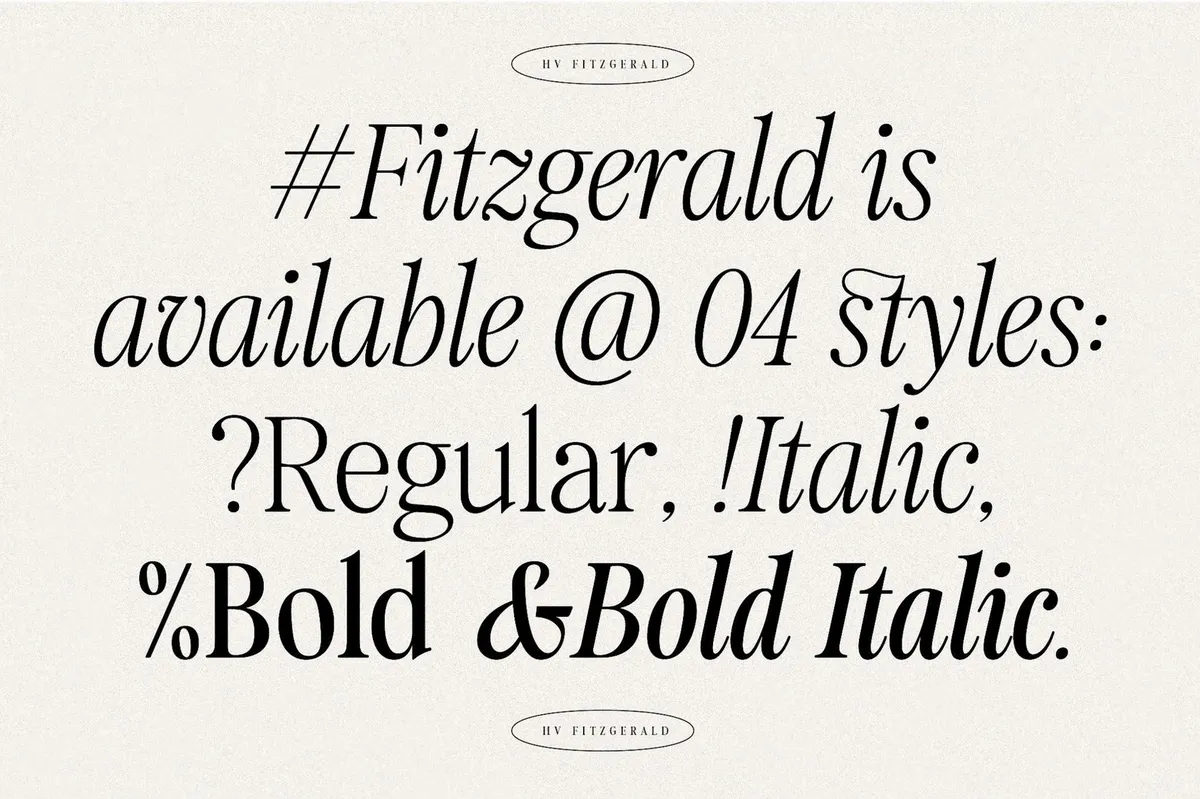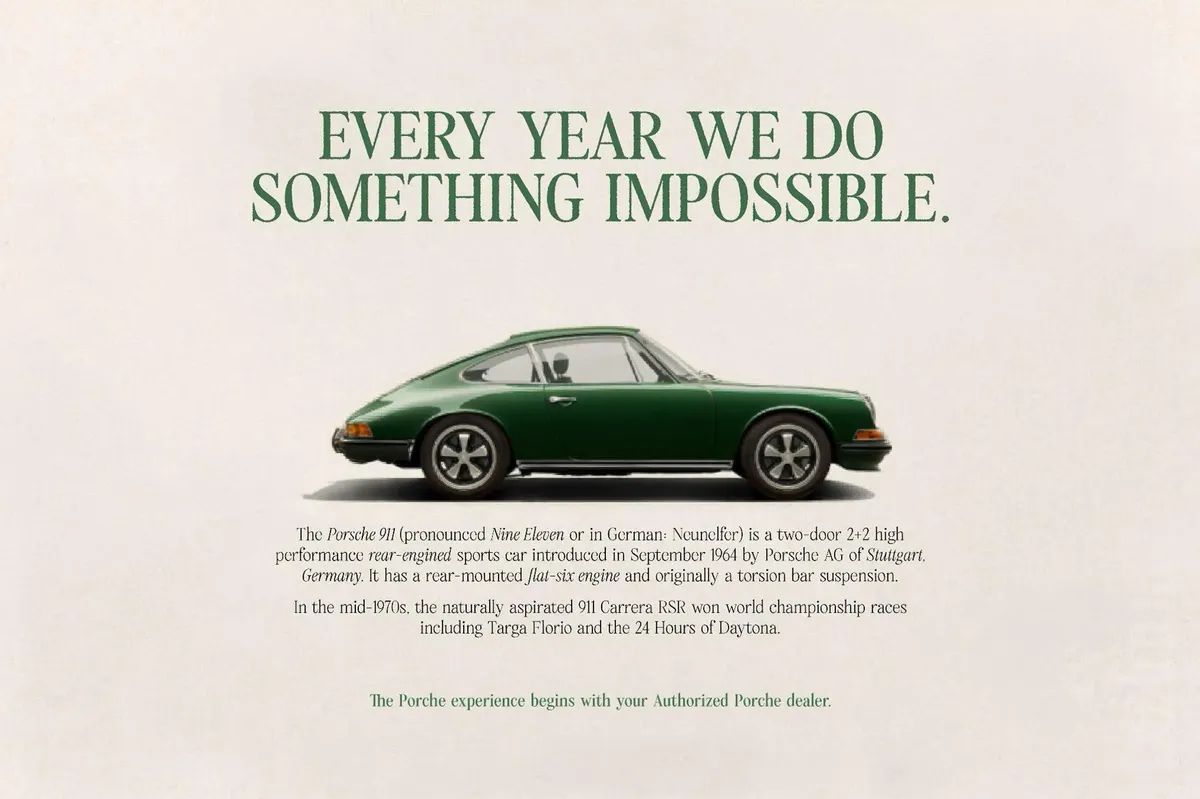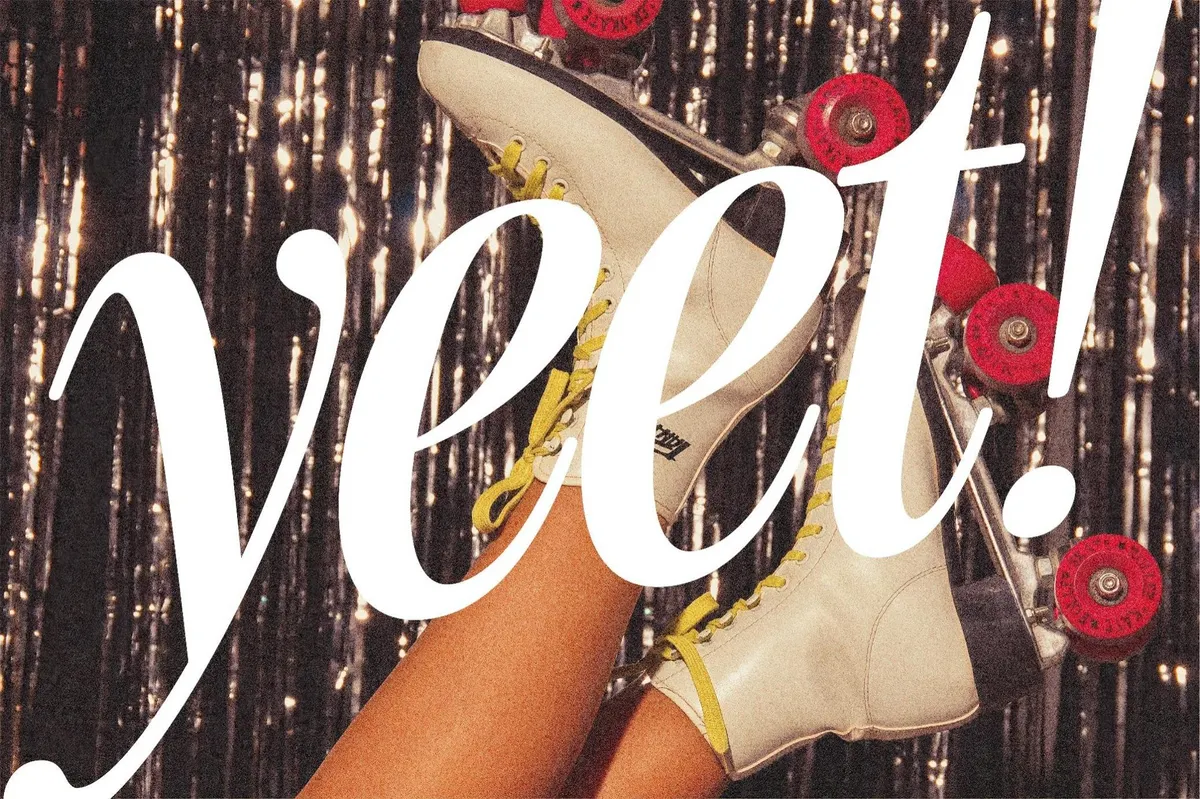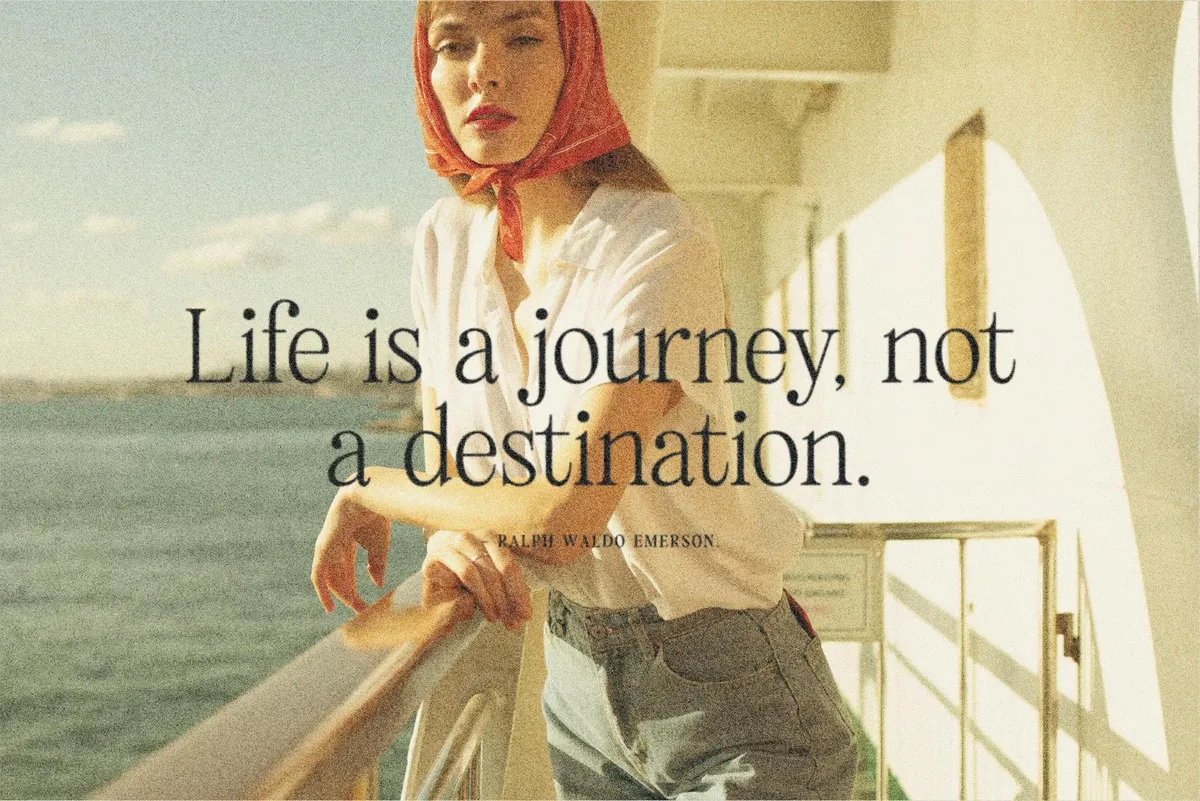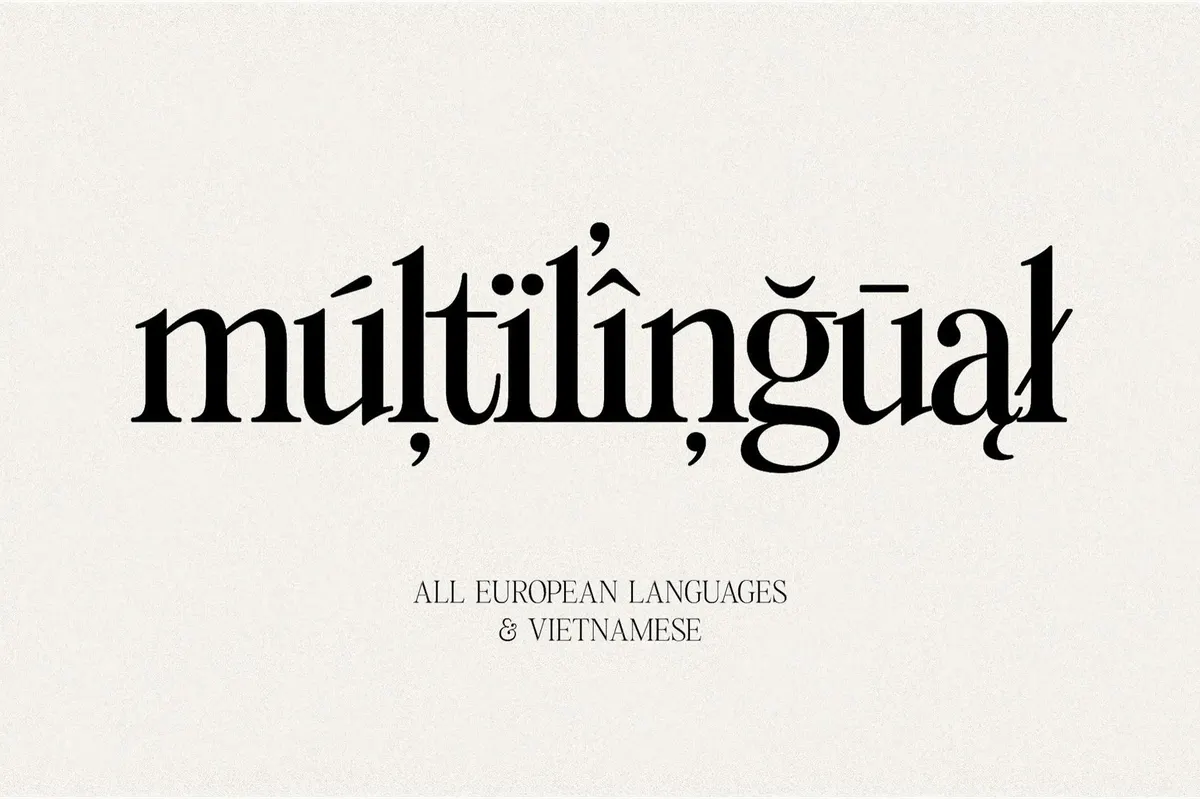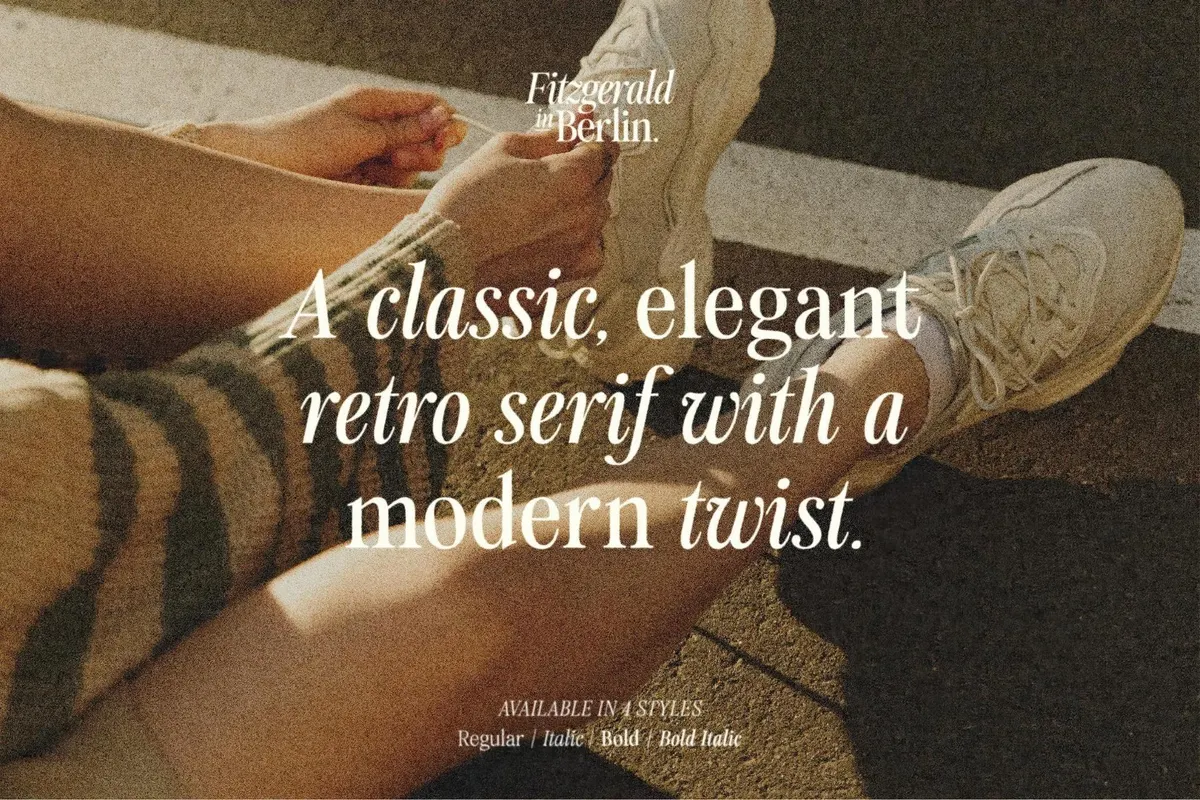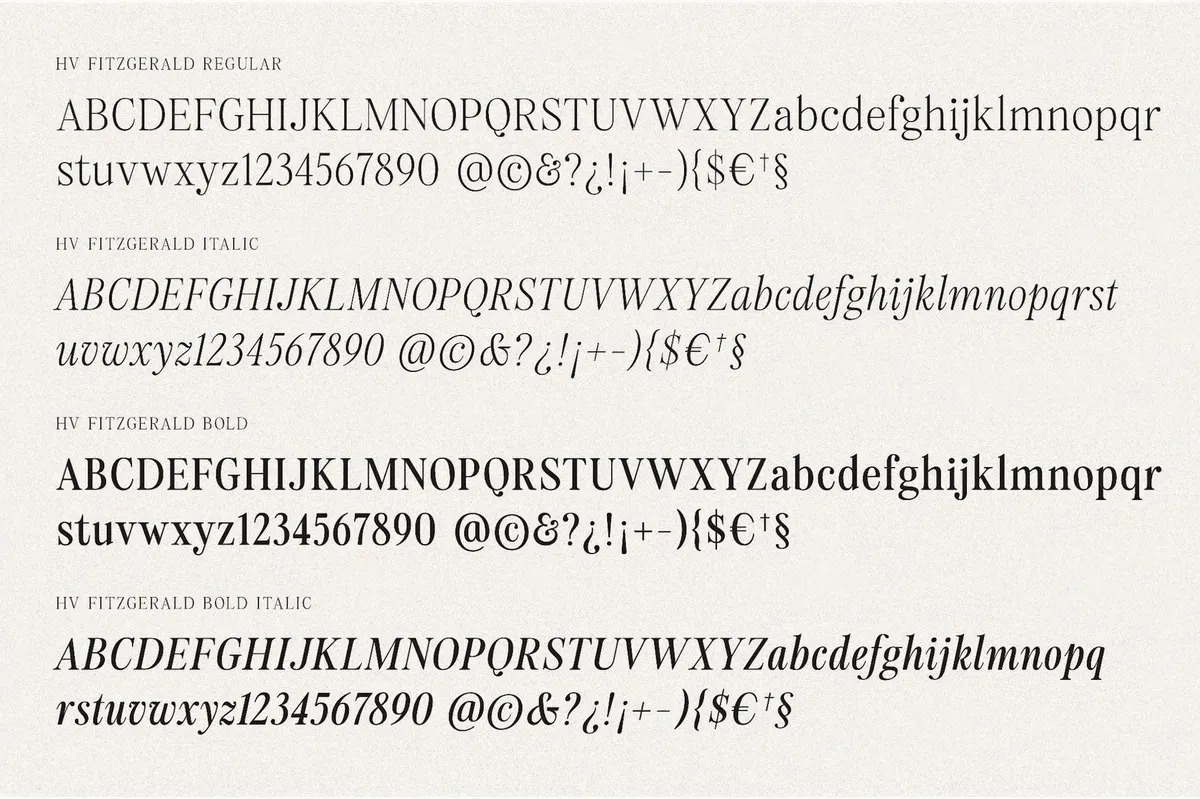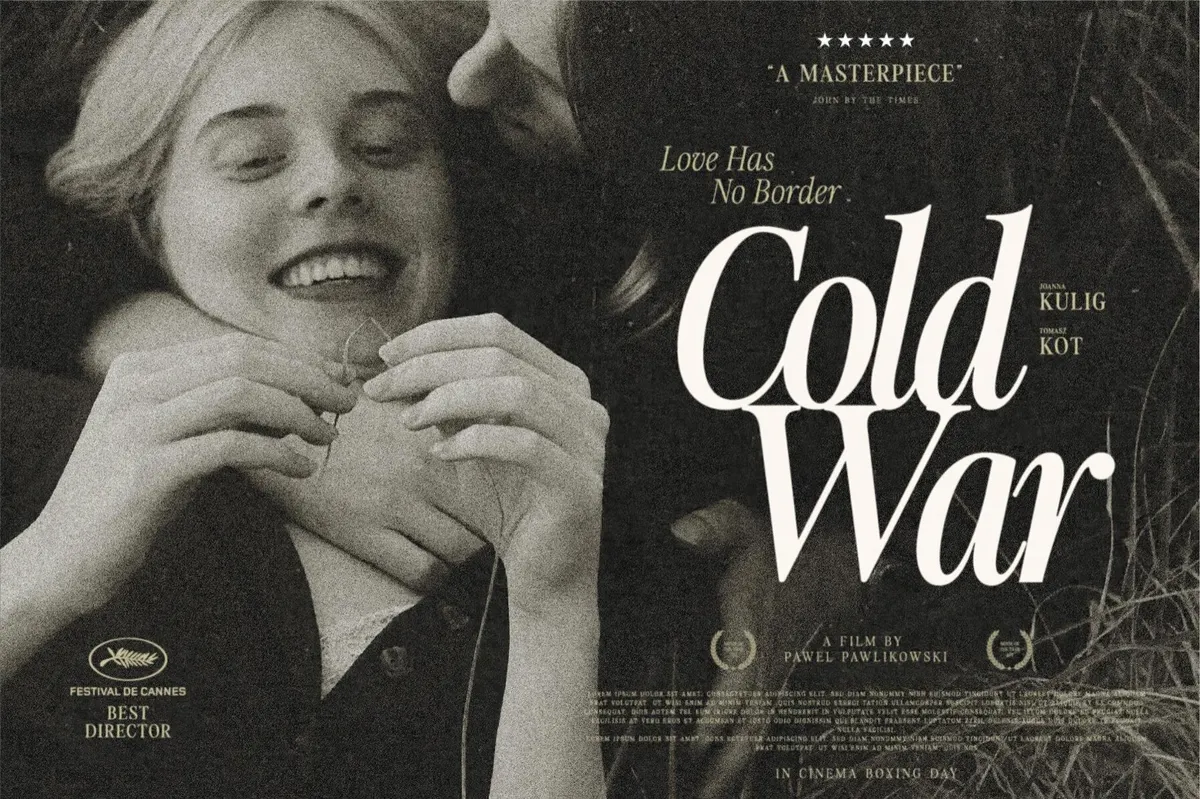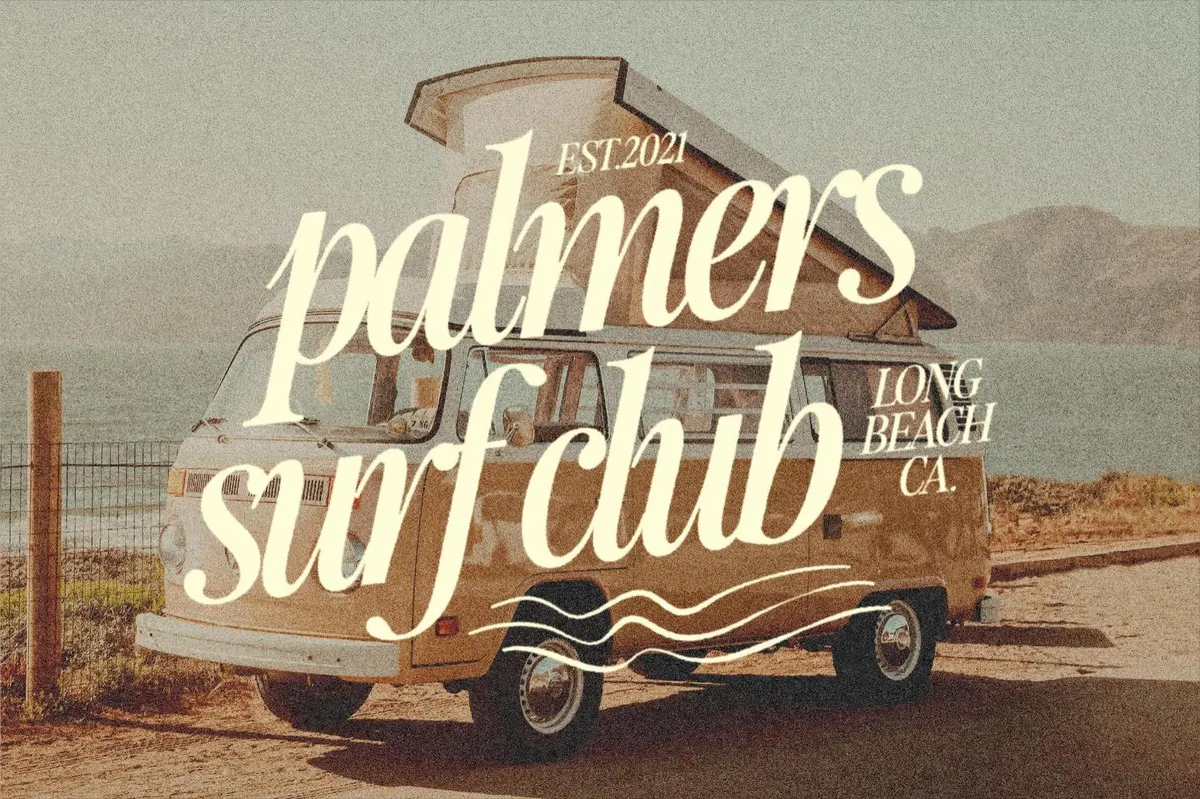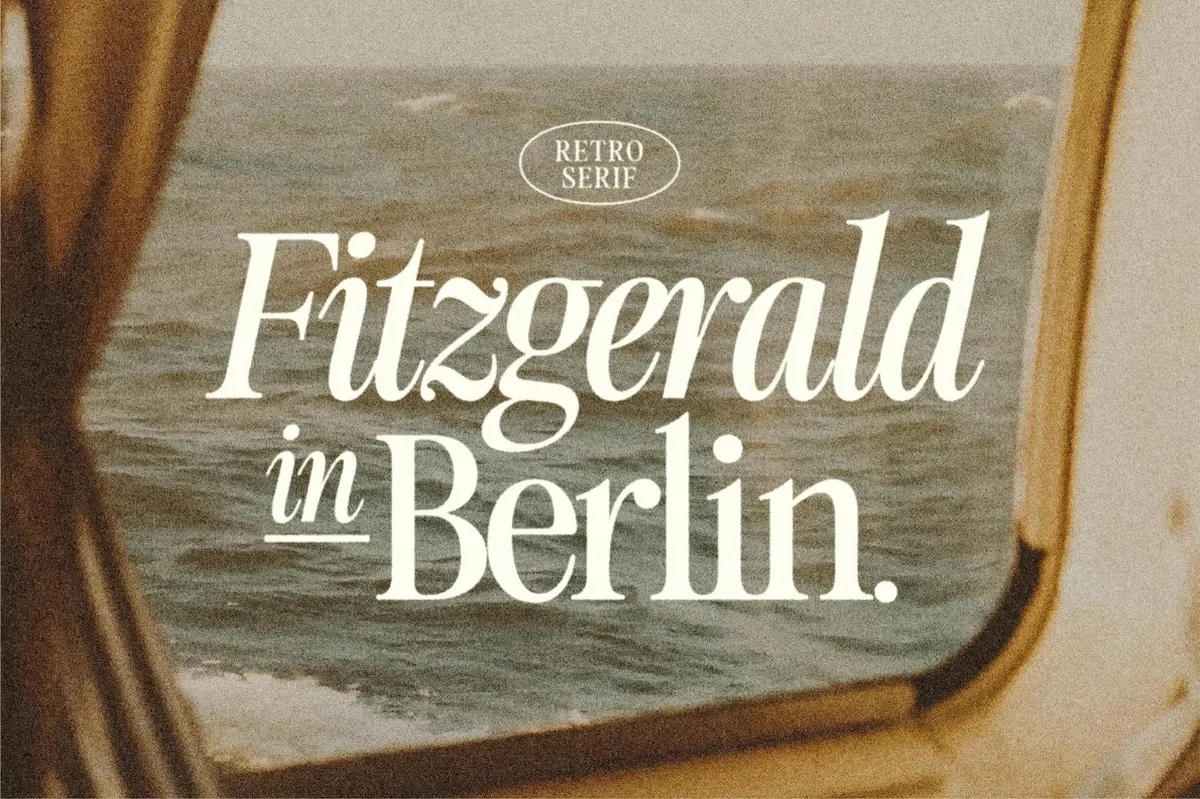
Fitzgerald — Classic Retro Serif
Think: old books, warm film grain, and slow, stylish typography. The Fitzgerald font is a retro-inspired serif typeface with a strong literary and editorial flair. It captures the charm of vintage print — with its elegant and readable flow and adds a handwritten rhythm that does not tip into full-script territory. Overall, it fits book covers, lifestyle magazines, boutique branding, travel journals, or nostalgic poster design.
There are four infinitely elegant styles: Regular, Italic, Bold, and Bold Italic. Each style has a complete character set and flawless style pairing — perfect for layouts that demand hierarchy and harmony.